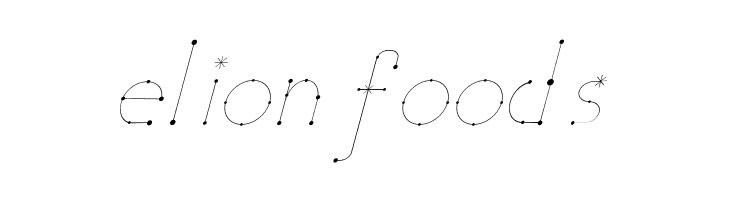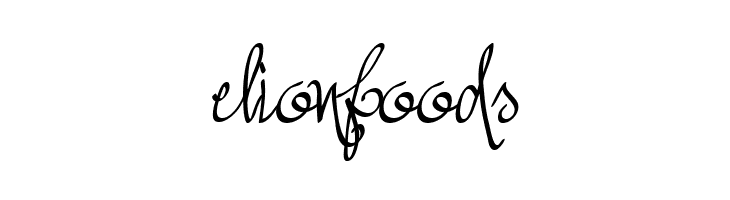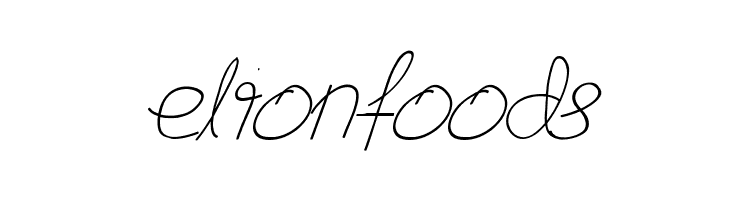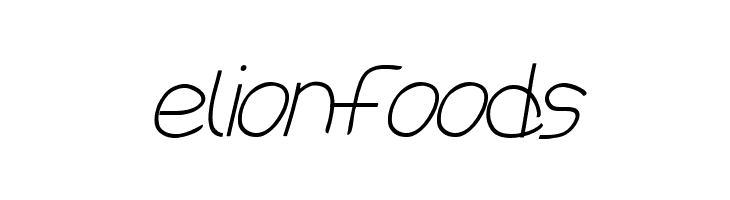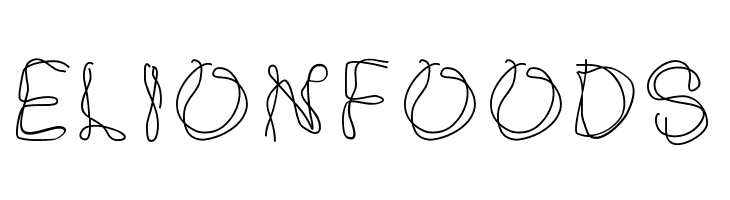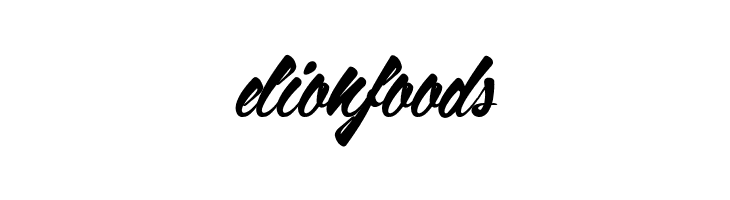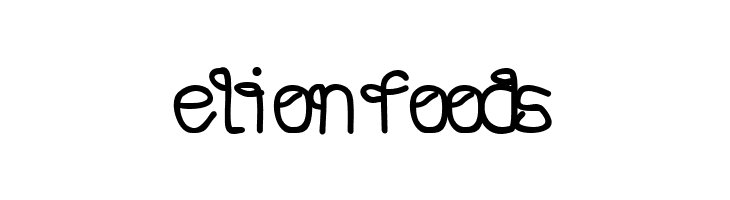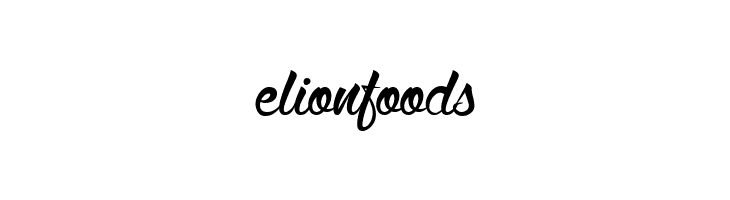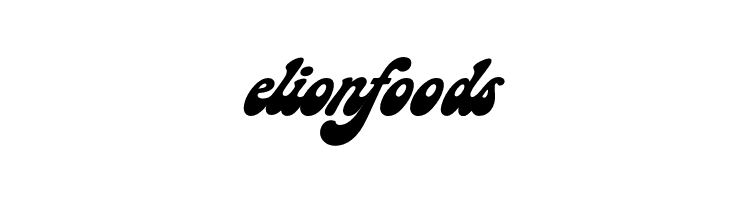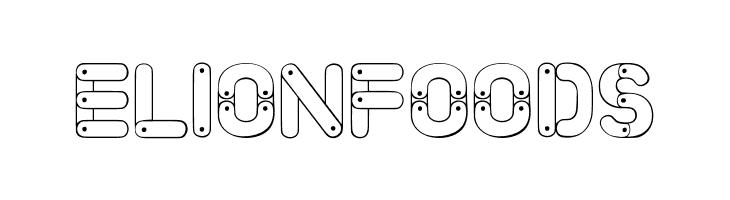
A playful, handwritten font with rounded, connected characters.
A whimsical and elegant script font with flowing, interconnected letterforms.
A playful, chain-like decorative font with interconnected circular elements.
A whimsical, hand-drawn font with looping, interconnected strokes.
A bold, cursive script font with dynamic loops and flowing connections.
A lively and dynamic handwritten font with fluid, connected strokes.
A playful, casual handwritten font with fluid, connected strokes.
A flowing, cursive font with elegant, interconnected characters.
A playful, artistic script font with flowing, interconnected letters and whimsical swirls.
A fluid, cursive script font with elegant, interconnected characters and a dynamic slant.
A dynamic and elegant script font with flowing curves and smooth connections.
A refined and elegant script font with flowing, connected characters.
An elegant cursive font with flowing, interconnected characters and ornate uppercase letters.
A bold, cursive font with flowing, connected letterforms and decorative flair.
A sophisticated, flowing script font with elegant, interconnected characters.
A playful, mechanical-themed font with interconnected lines and nodes.
A fluid, cursive script font with elegant, connected letters.